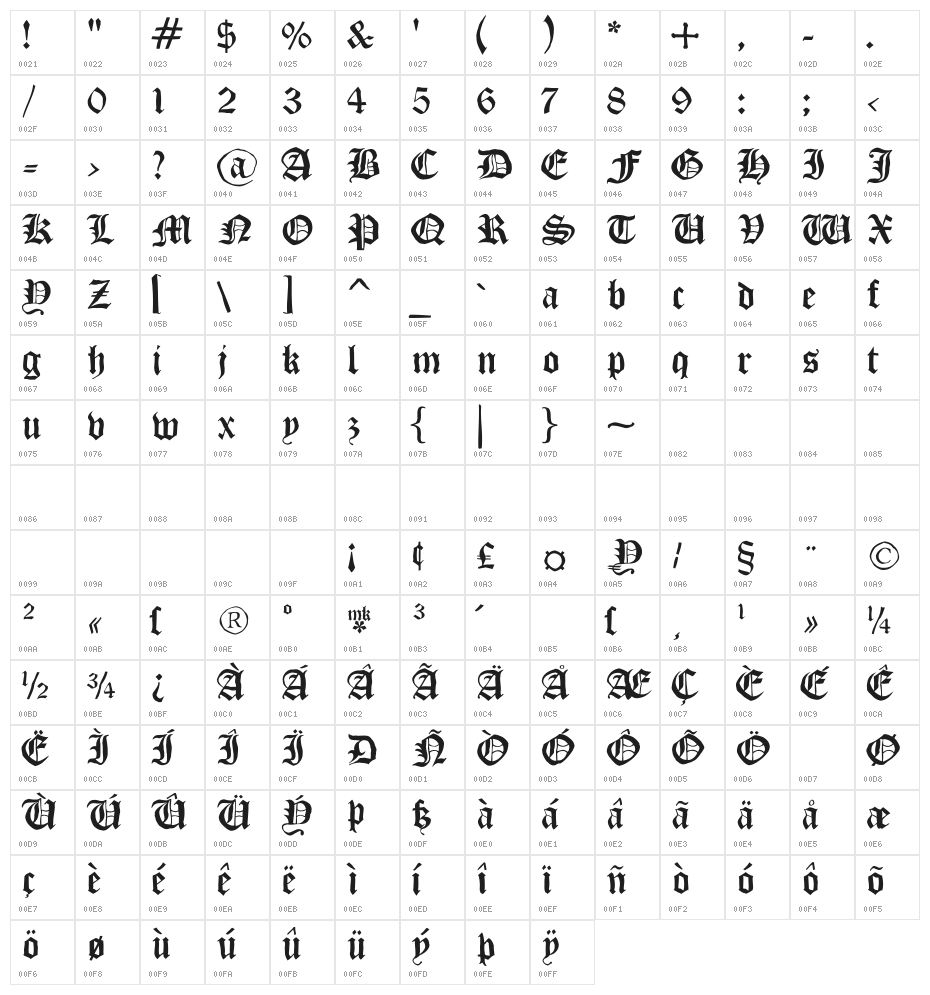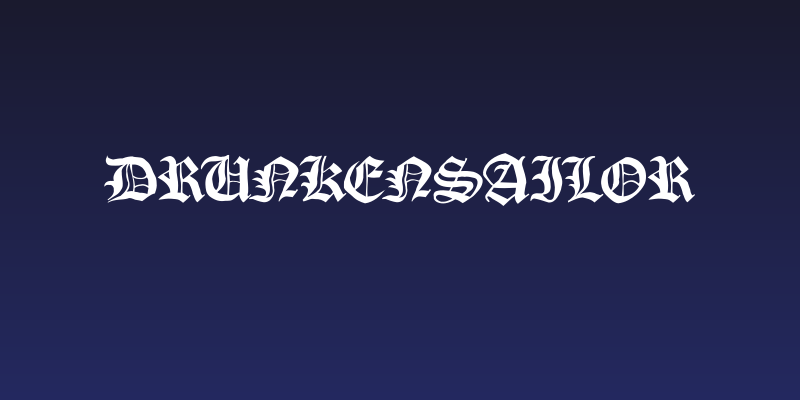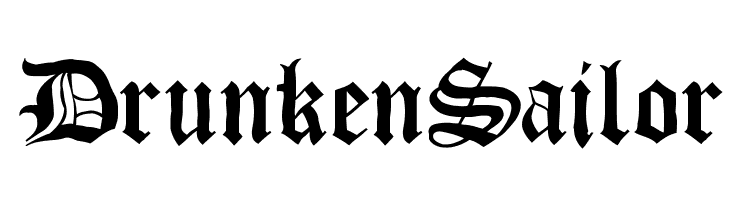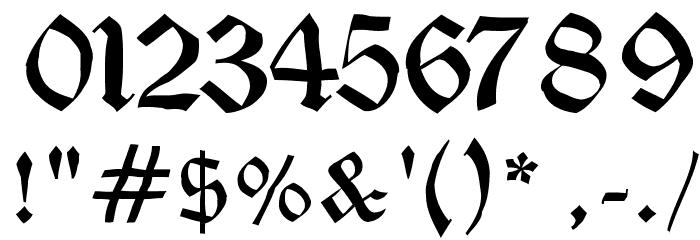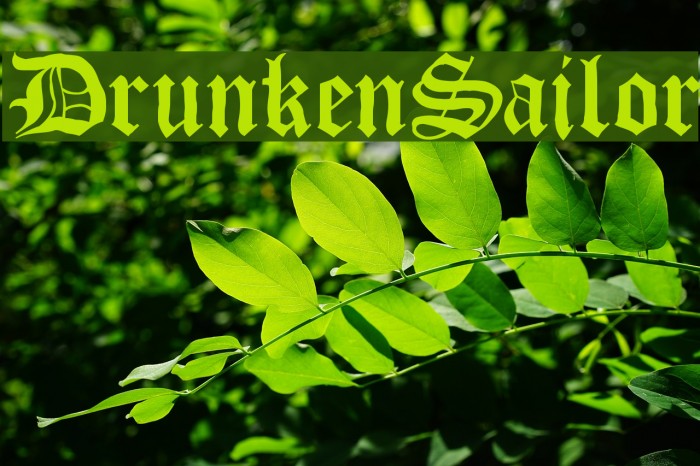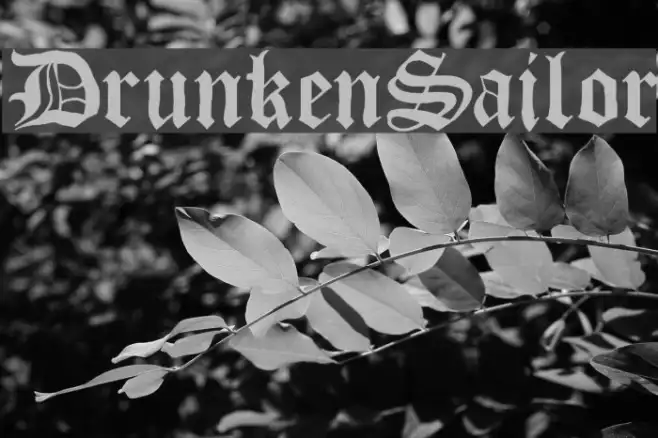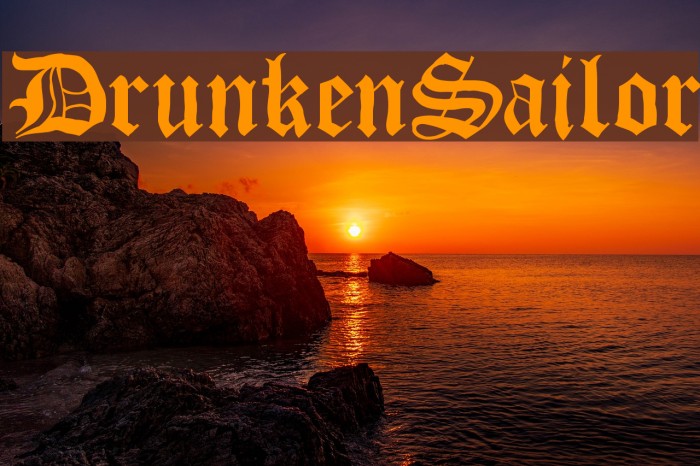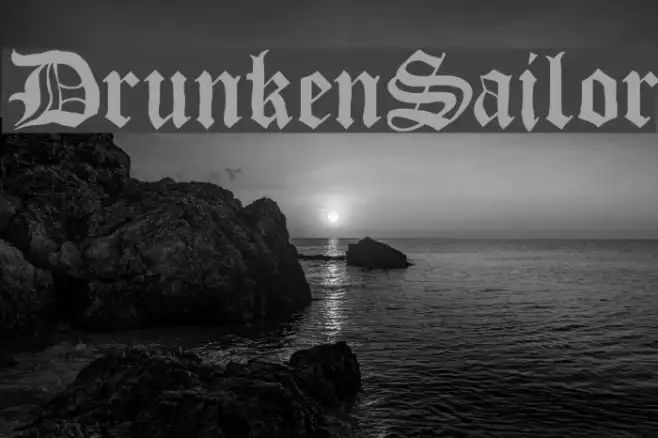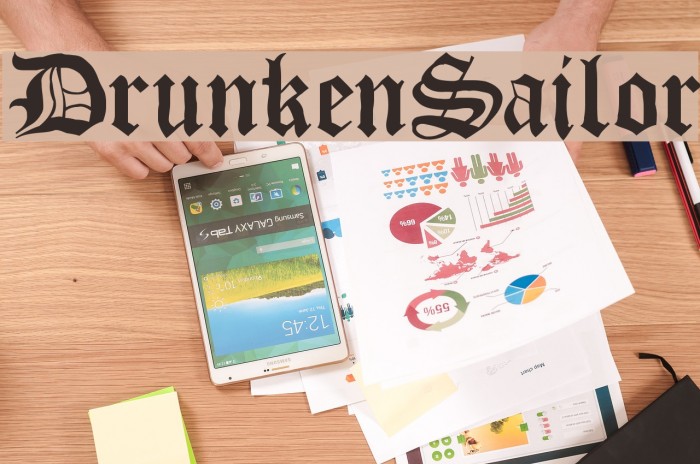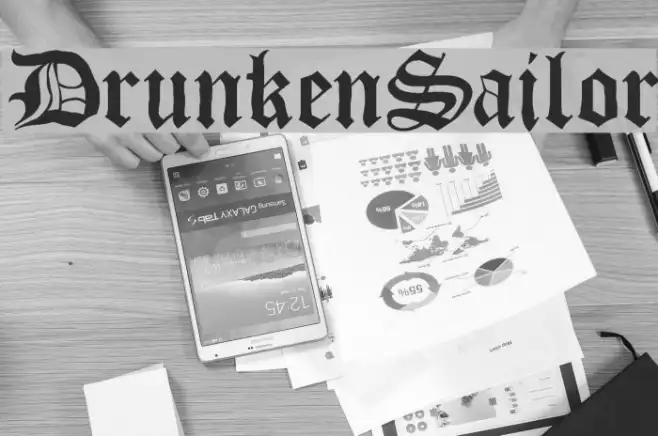
DrunkenSailor Font
DrunkenSailor Description
This font exhibits a bold and dramatic style, reminiscent of traditional Blackletter typefaces. The characters are intricately designed with sharp, angular lines and elaborate flourishes, giving it a historic and authoritative appearance. The uppercase letters are particularly ornate, featuring exaggerated serifs and decorative elements that enhance their visual impact. Lowercase letters maintain a consistent style, with a slightly more subdued design that complements the uppercase set. The numerals and special characters follow the same aesthetic, ensuring a cohesive look across all glyphs. This font's unique style makes it suitable for projects that require a touch of elegance and tradition.
| Use Case | Logos, Headlines, Certificates |
| Proposed Projects | Ideal for historical documents, certificates, logos, and branding that require a traditional and authoritative look. |